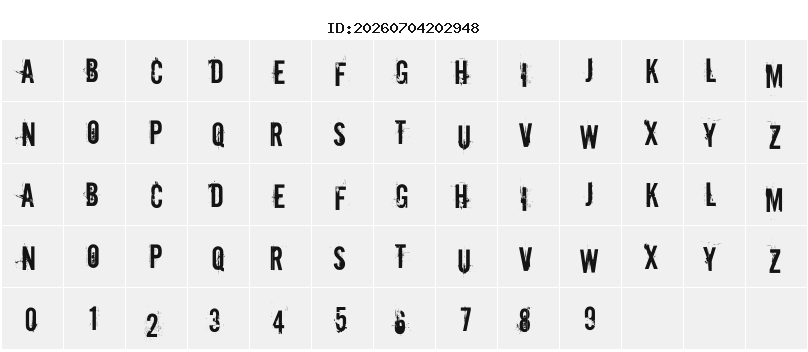
Downcome Preview
• Font Name: Downcome
• Full Font Name: Downcome
About Downcome.ttf
Downcome.ttf is a modern, elegant sans-serif font designed for ultimate readability and visual harmony. Perfect for branding, headlines, web design, and print materials.